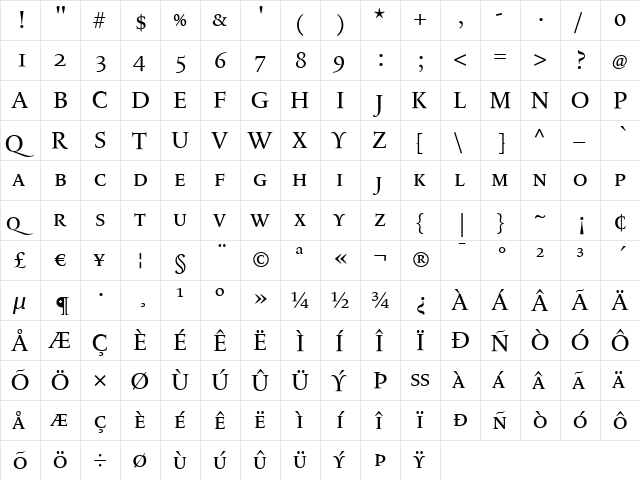
LeMondeLivreClassic Regular Font Preview
LeMondeLivreClassic Regular
Design Context for LeMondeLivreClassic Typeface
LeMondeLivreClassic has the warm character of retro typography — evoking diners, record sleeves, and the golden age of print advertising.
Ideal for diner signage, record shop branding, 70s/80s-themed projects, and heritage product labels.
Font Pairing: Combine LeMondeLivreClassic with a simple slab or neutral sans — period-accurate companions reinforce the vintage feel without competing for attention.
Pro Tip: Lean into LeMondeLivreClassic's period character by pairing it with aged paper textures, muted colour palettes, and vintage illustration styles.